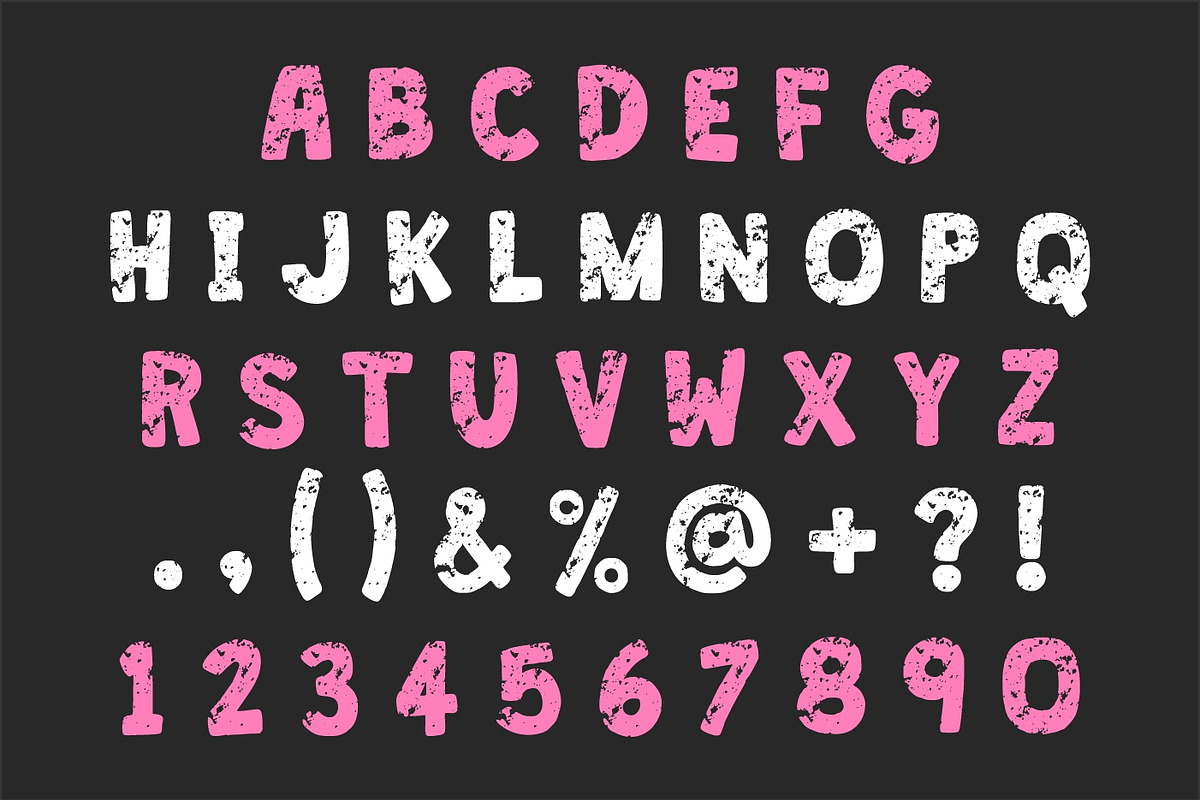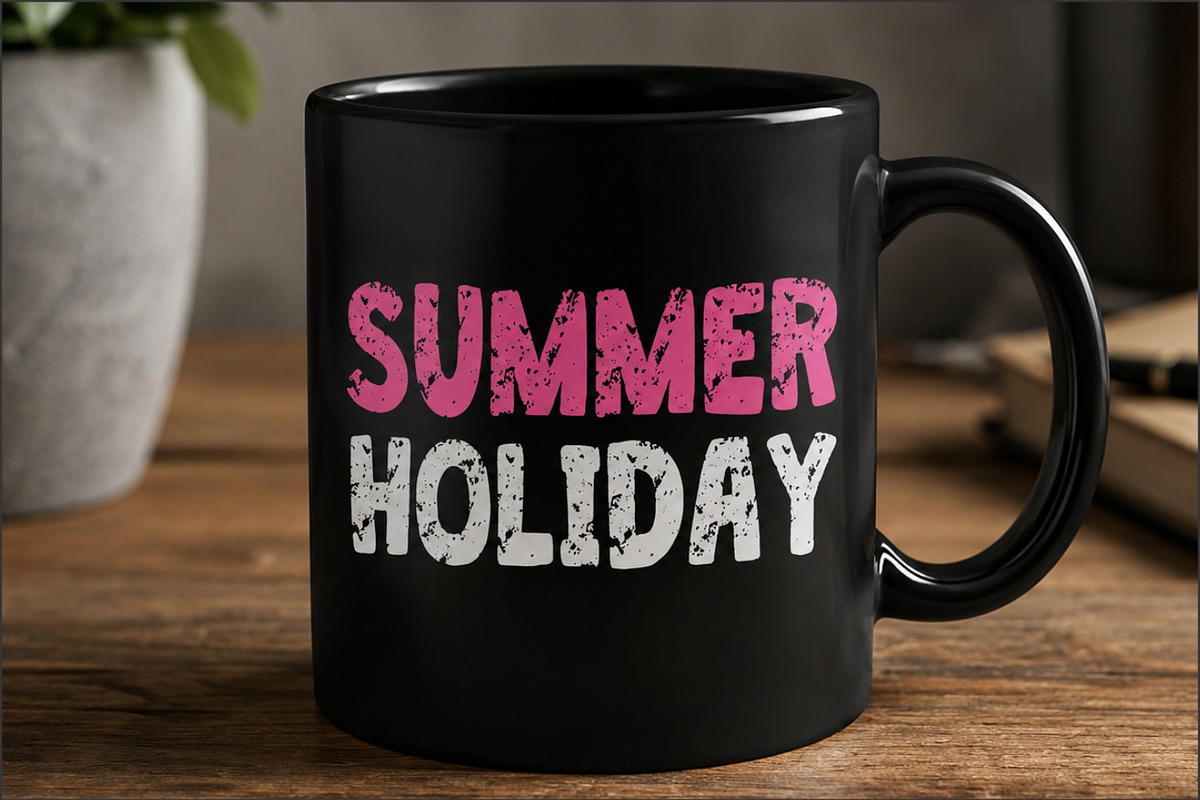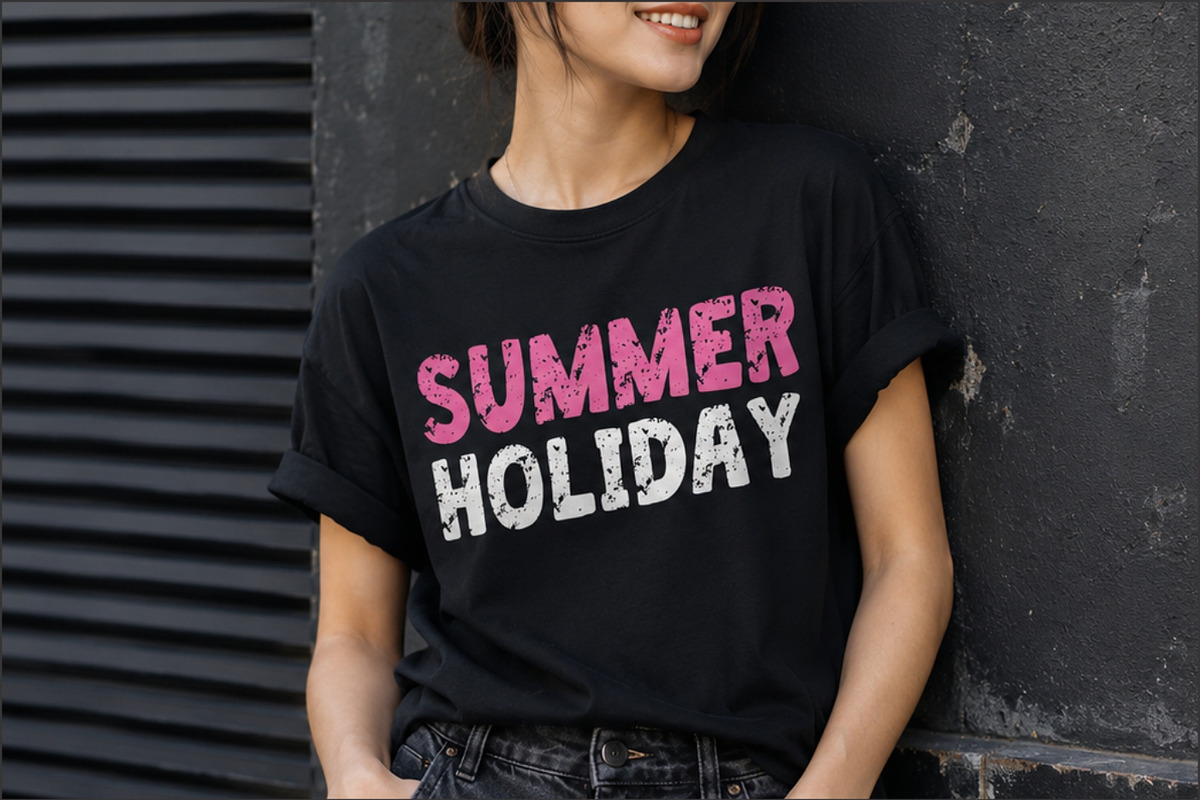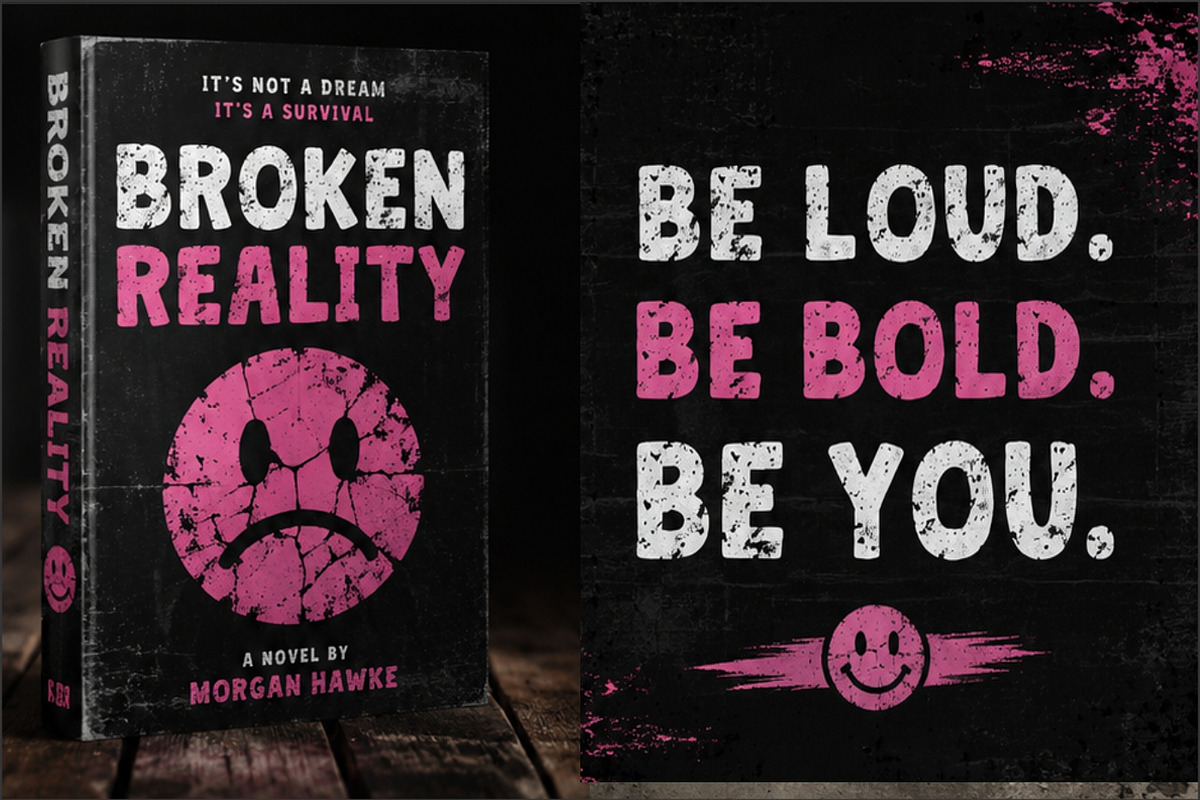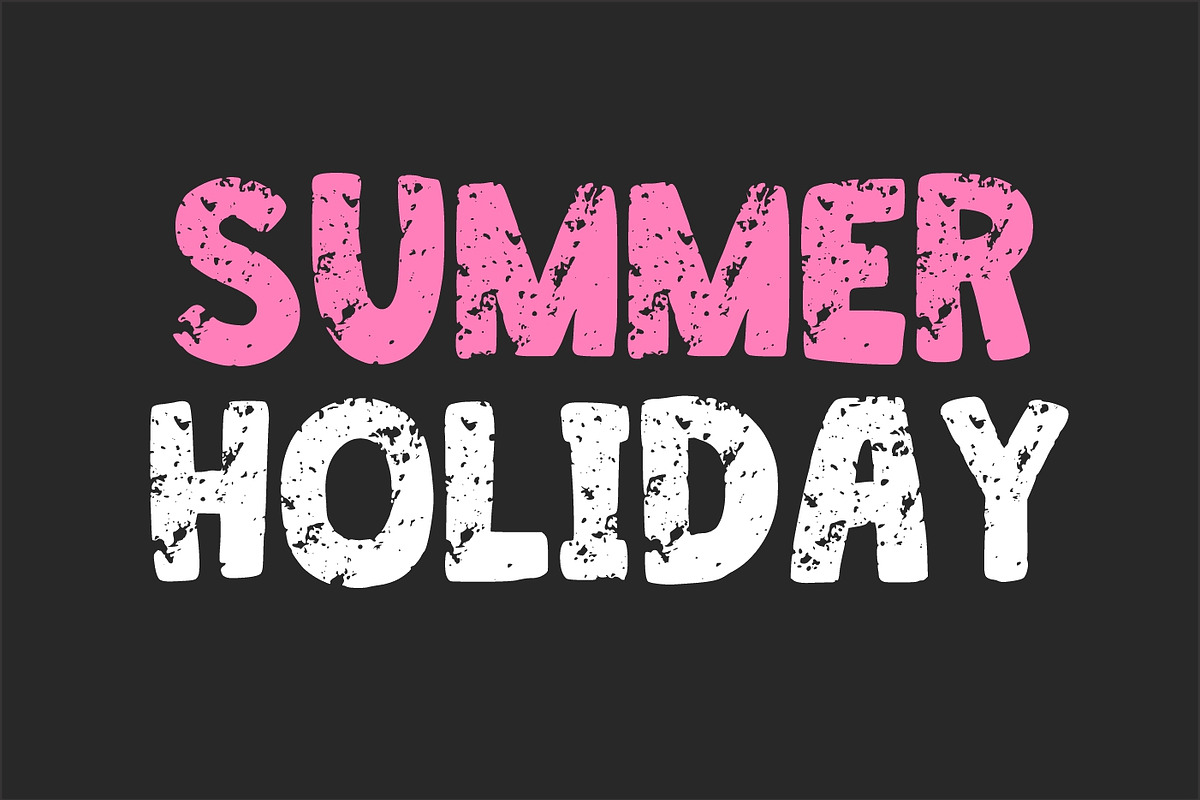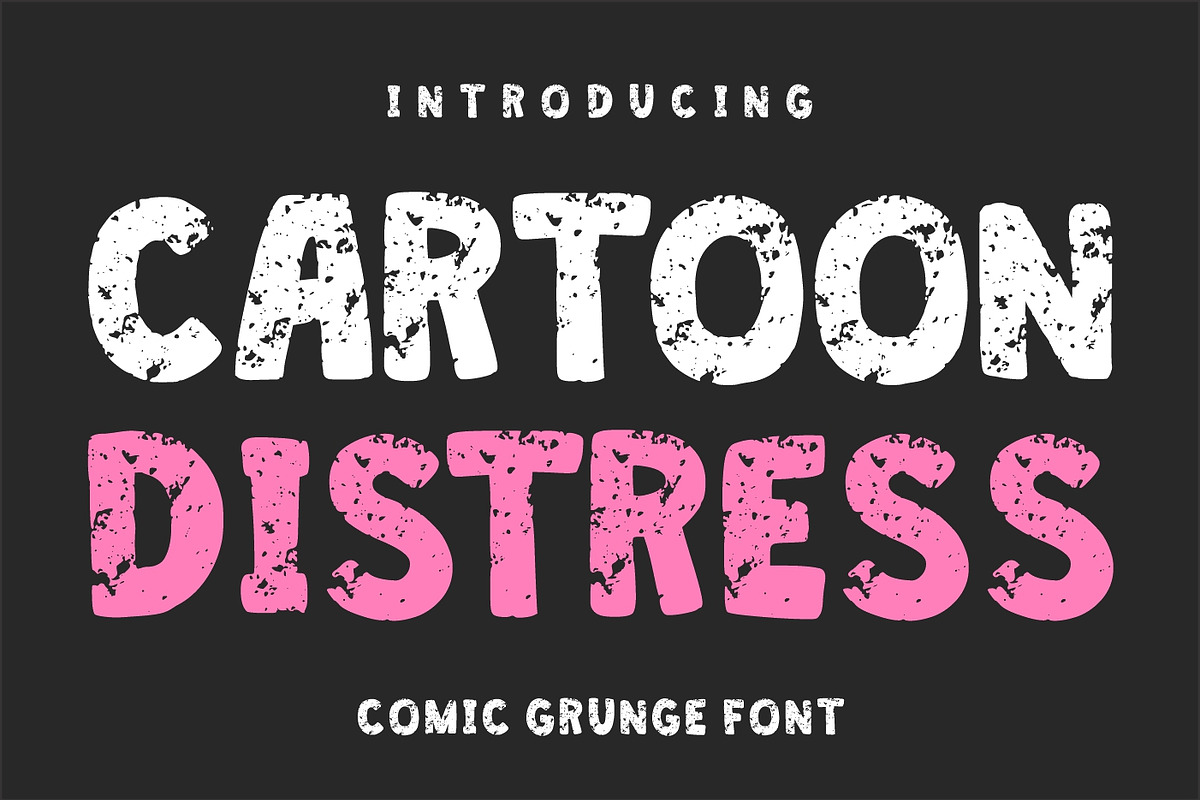
Cartoon Distress
Cartoon Distress is a bold and energetic comic grunge font that combines playful cartoon styling with a rugged distressed texture. Designed to make a strong visual impact, this font features chunky letterforms, rough weathered details, and a rebellious urban attitude that instantly grabs attention.
Perfect for comic book covers, posters, gaming graphics, YouTube thumbnails, streetwear branding, merchandise, stickers, children’s products, social media content, event flyers, album artwork, and creative marketing campaigns, Cartoon Distress brings excitement and personality to every design.
Its handcrafted distressed appearance creates an authentic grunge aesthetic while maintaining excellent readability. Whether you’re designing retro comic artwork, edgy apparel graphics, punk-inspired branding, or fun promotional materials, this font delivers a unique blend of playful charm and bold character.
Cartoon Distress is ideal for designers who want a font that feels expressive, energetic, youthful, and slightly rebellious. The rough texture adds depth and authenticity, making headlines and titles stand out with a memorable visual presence.